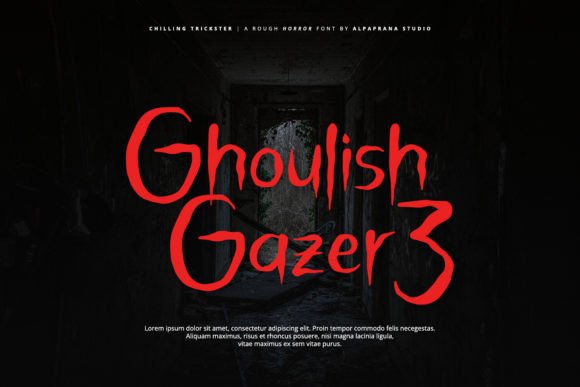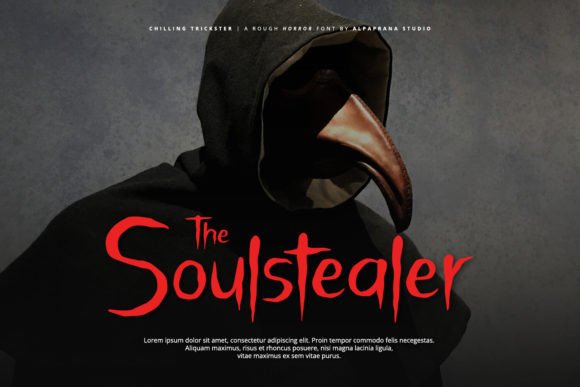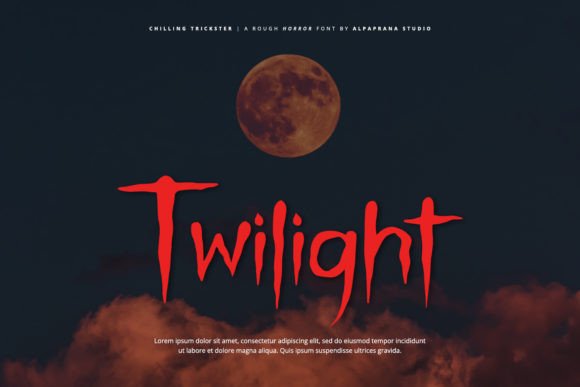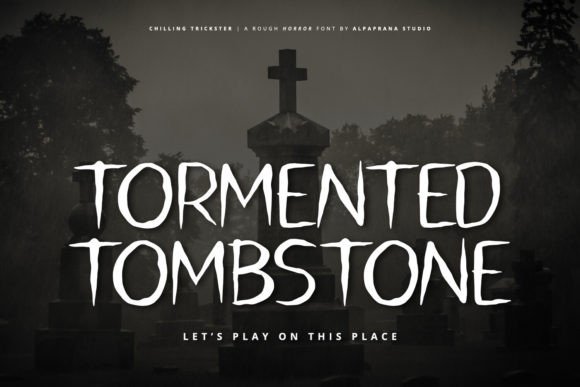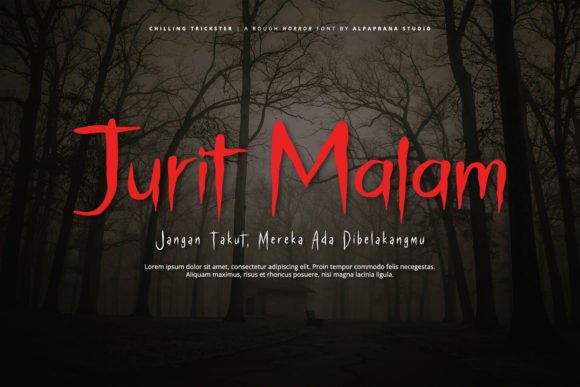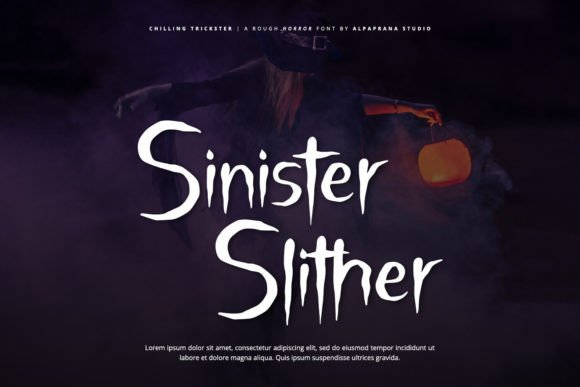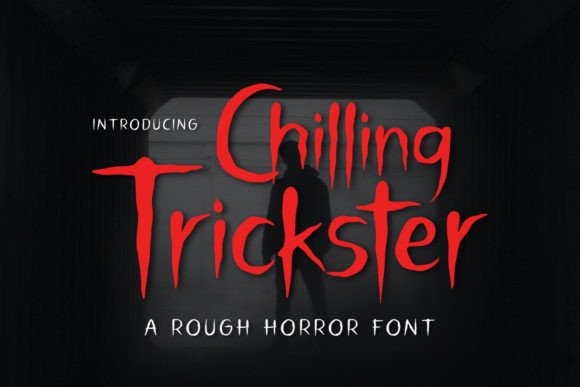
Unleash the Fear: Introducing the Chilling Trickster Font
Are you a designer or crafter looking for a font that will add a touch of horror and edginess to your projects? Look no further than the Chilling Trickster Font. This rough horror font is designed to evoke a sense of fear and unease, making it perfect for a wide range of design projects, from branding and logo design to lettering, logotype, and more.
The Perfect Font for Horror-Inspired Designs
The Chilling Trickster Font is a unique and terrifying typeface that is sure to make your designs stand out. Its rough, distressed texture gives it a creepy and unsettling feel, making it perfect for designers who want to create a sense of tension and fear in their work. Whether you’re designing a logo, creating a poster, or crafting a book cover, this font is sure to add a touch of horror and excitement to your project.
Versatile and Easy to Use
One of the best things about the Chilling Trickster Font is its versatility. It can be used for a wide range of design projects, including:
- Branding and logo design: Create a memorable and terrifying logo that will leave a lasting impression on your customers.
- Lettering and logotype: Add a touch of horror to your lettering and logotype with this unique and creepy font.
- Clothing and accessories: Design t-shirts, hoodies, and other clothing items that will make a statement.
- Posters and magazines: Create eye-catching posters and magazine covers that will grab attention.
- Packaging and shopping bags: Add a touch of horror to your packaging and shopping bags.
- Book covers and photography: Create a terrifying book cover or add a touch of horror to your photography.
- Special events: Use this font to create invitations, flyers, and other promotional materials for your special events.
Key Features of the Chilling Trickster Font
The Chilling Trickster Font has several key features that make it perfect for horror-inspired designs:
- Rough, distressed texture: Gives the font a creepy and unsettling feel.
- Unique and terrifying design: Makes your designs stand out and adds a touch of horror.
- Versatile: Can be used for a wide range of design projects.
Tips for Using the Chilling Trickster Font
Here are some tips for using the Chilling Trickster Font in your designs:
- Use it sparingly: The Chilling Trickster Font is a bold and attention-grabbing font, so use it sparingly to avoid overwhelming your design.
- Pair it with other fonts: Pair the Chilling Trickster Font with other fonts to create a unique and interesting contrast.
- Experiment with different colors: The Chilling Trickster Font looks great in bold, bright colors, but you can also experiment with different colors to create a unique look.
- Use it to create a sense of tension: The Chilling Trickster Font is perfect for creating a sense of tension and fear in your designs.